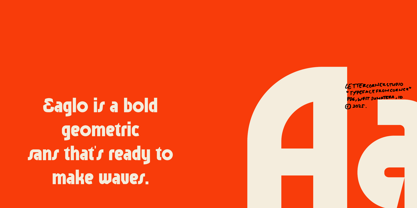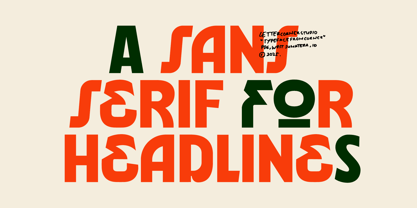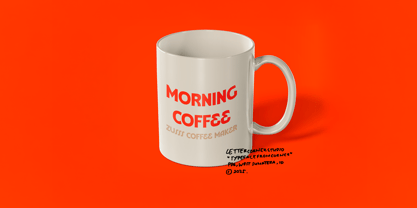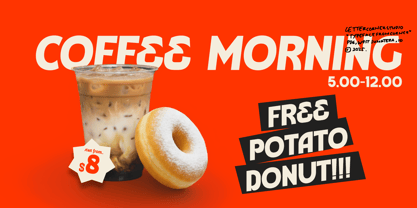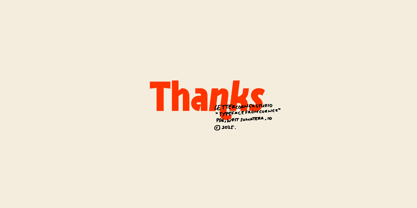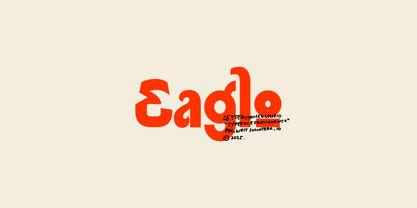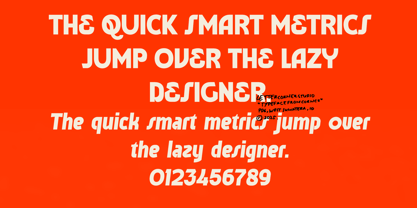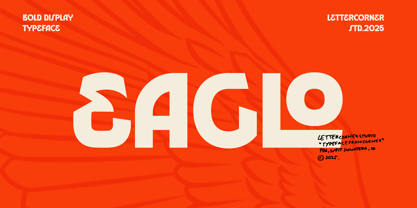
Eaglo
by Mevstory Studio
The Eaglo Font Family was designed by Muhammad Afif Ersya and published by Mevstory Studio. Eaglo contains 2 styles and family package options.
Eaglo is a bold sans serif typeface that embodies strength and precision. Designed with clean geometry and confident proportions, it reflects the sharp focus and modern spirit of its namesake — the eagle. Its robust structure and balanced curves impart a distinctive personality: strong yet refined, modern yet timeless. Ideal for logos, headlines, posters, and tech-inspired branding, Eaglo provides clarity and impact in every letterform. Whether you’re creating a sleek corporate identity or a striking editorial design, Eaglo ensures your message stands tall — powerful, precise, and unmistakably modern.
Designers: Muhammad Afif Ersya
Publisher: Mevstory Studio
Foundry: Mevstory Studio
Design Owner: Mevstory Studio